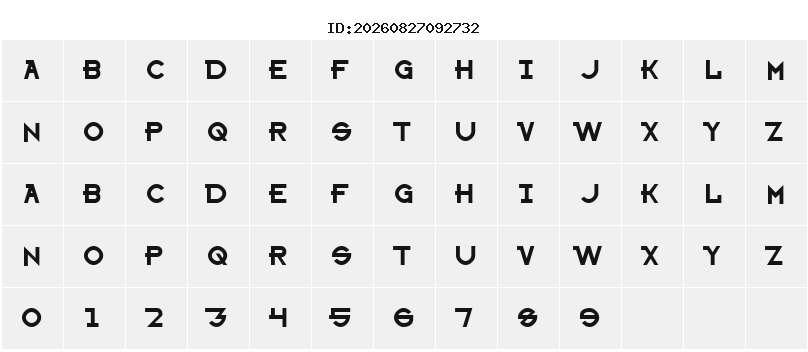
375-CAI978 Preview
• Version: Version 1.00 November 2, 1998, initial release
About 375-CAI978.ttf
375-CAI978.ttf is a modern, elegant sans-serif font designed for ultimate readability and visual harmony. Perfect for branding, headlines, web design, and print materials.